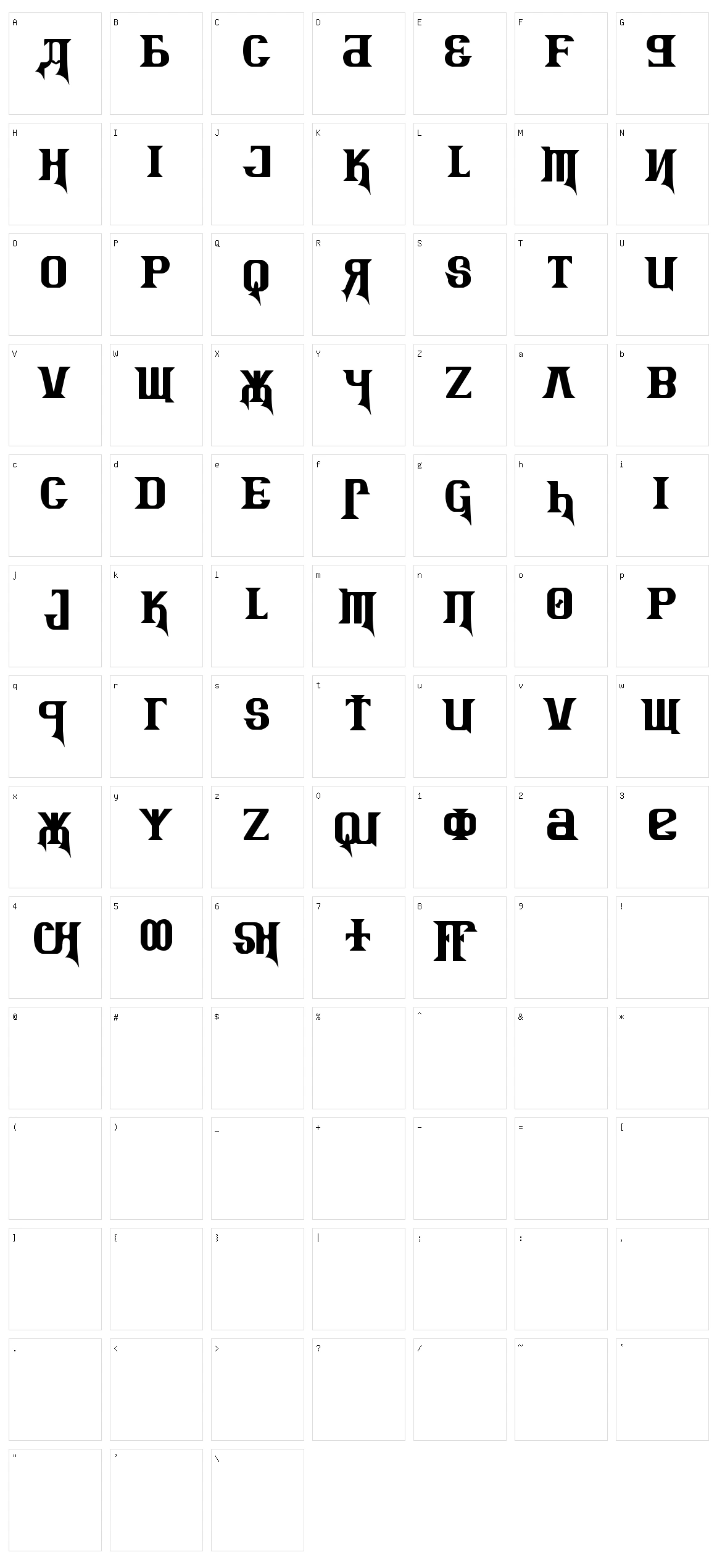
The free font Kremlin Advisor Display Kaps is carefully designed by Bolt Cutter Design-Industrial Strength, showcasing a thoughtful balance of creativity and usability and falls under the Russian font style. When you download the ZIP file, it contains only 8.59 KB of font files, making it lightweight and quick to download. Please review the license details below to understand permitted usage and distribution rights. If license information is not available, we recommend using this font for personal projects only or contacting the author directly for commercial usage permissions.